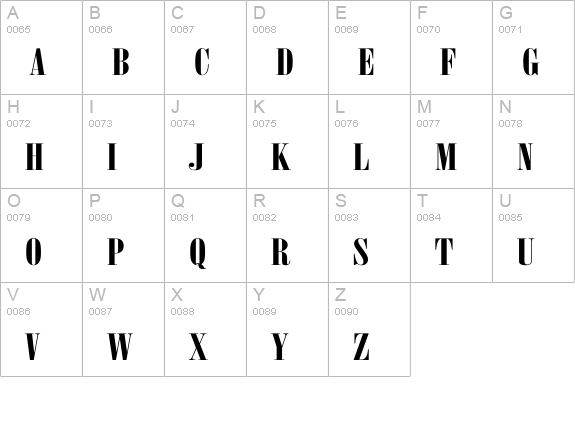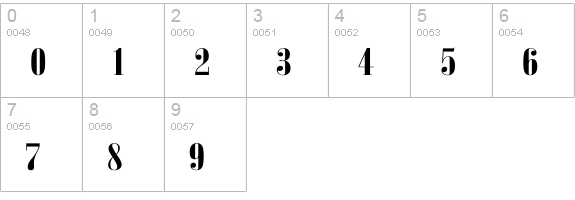
Arsis DReg Normal is the standard, neutral variant in the Arsis typeface family \xE2\x80\x94 well suited to general body text, paragraphs, and standard typographic work.
Arsis DReg Normal font is a modern and stylish typeface that exudes elegance and sophistication. With its clean lines and sleek design, this font is perfect for a wide range of projects, from branding to editorial design. The versatility of Arsis DReg Normal font makes it a must-have for designers looking to add a touch of class to their work. The best part? Arsis DReg Normal font is available for free download at FontsMarket.com. You can easily access this beautiful font and use it in your projects without any cost. Whether you're working on a personal project or a client commission, Arsis DReg Normal font is sure to impress with its timeless appeal. Don't miss out on this opportunity to enhance your design projects with Arsis DReg Normal font. Download it today and elevate your work to a whole new level of sophistication.